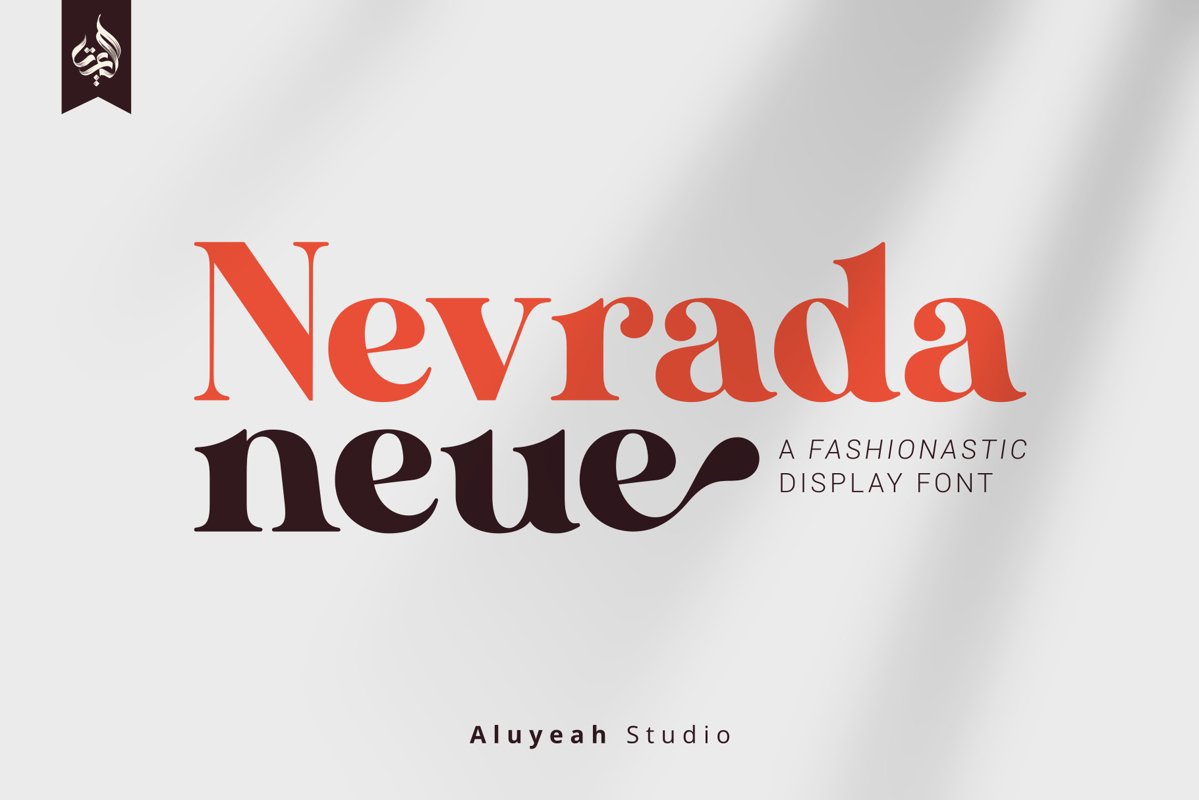
Bonjour! Nevrada Neue is a fashiontastic display font. This font was carefully crafted from bestseller font Nevrada and inspired by one of leading fashion brand in the world. In general, it creates a luxurious and elegant look in design.
Coming to you with 90+ luxury alternate to create a perfectly beautiful, classy, chic, elegant, glamorous and luxurious design.
Use this font for your fashion brand, resort, cosmetics, invitations, wedding, branding, packaging, magazines, boutique, social media, restaurant, spa, greeting cards, headers, headline and many more.